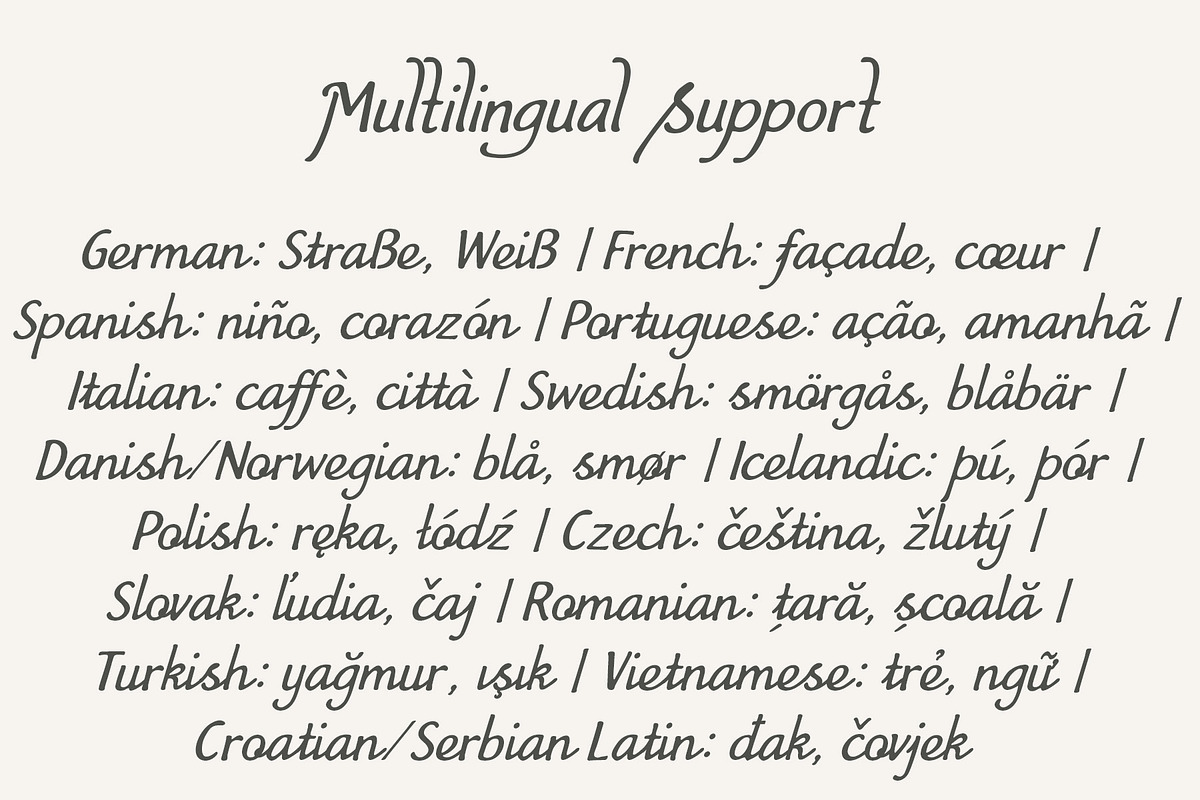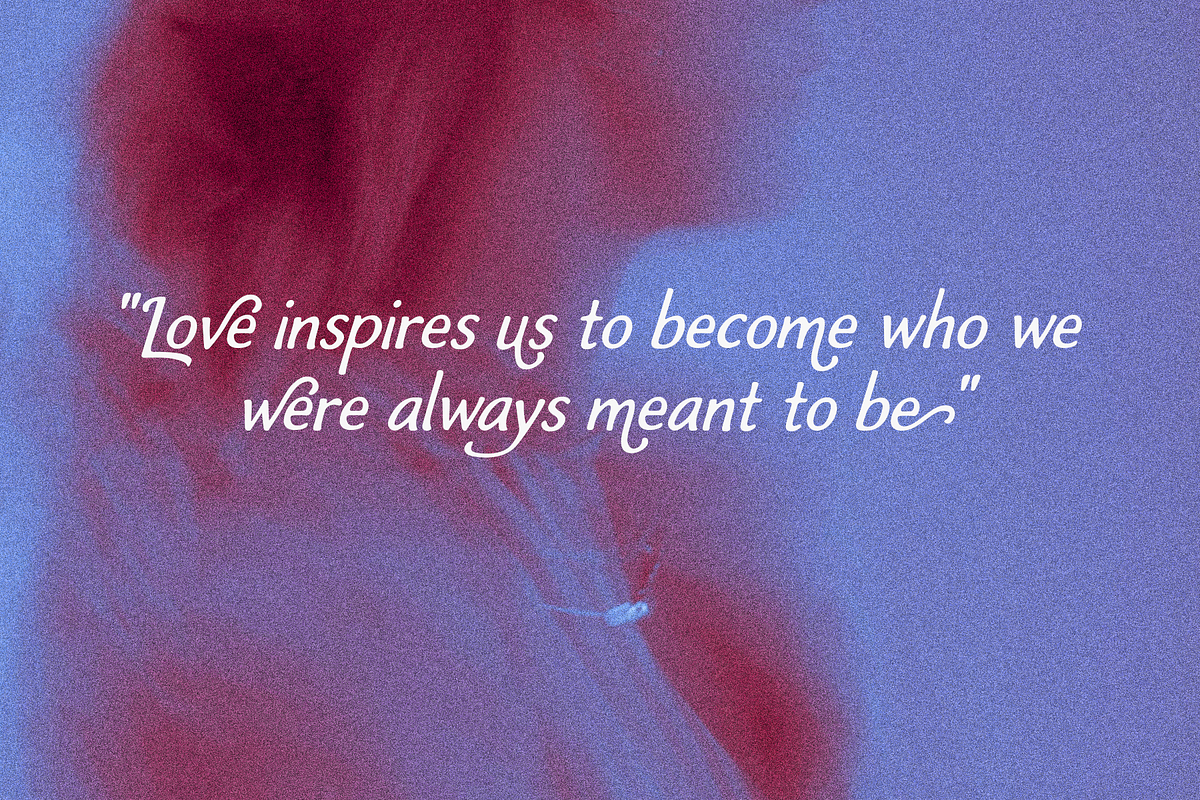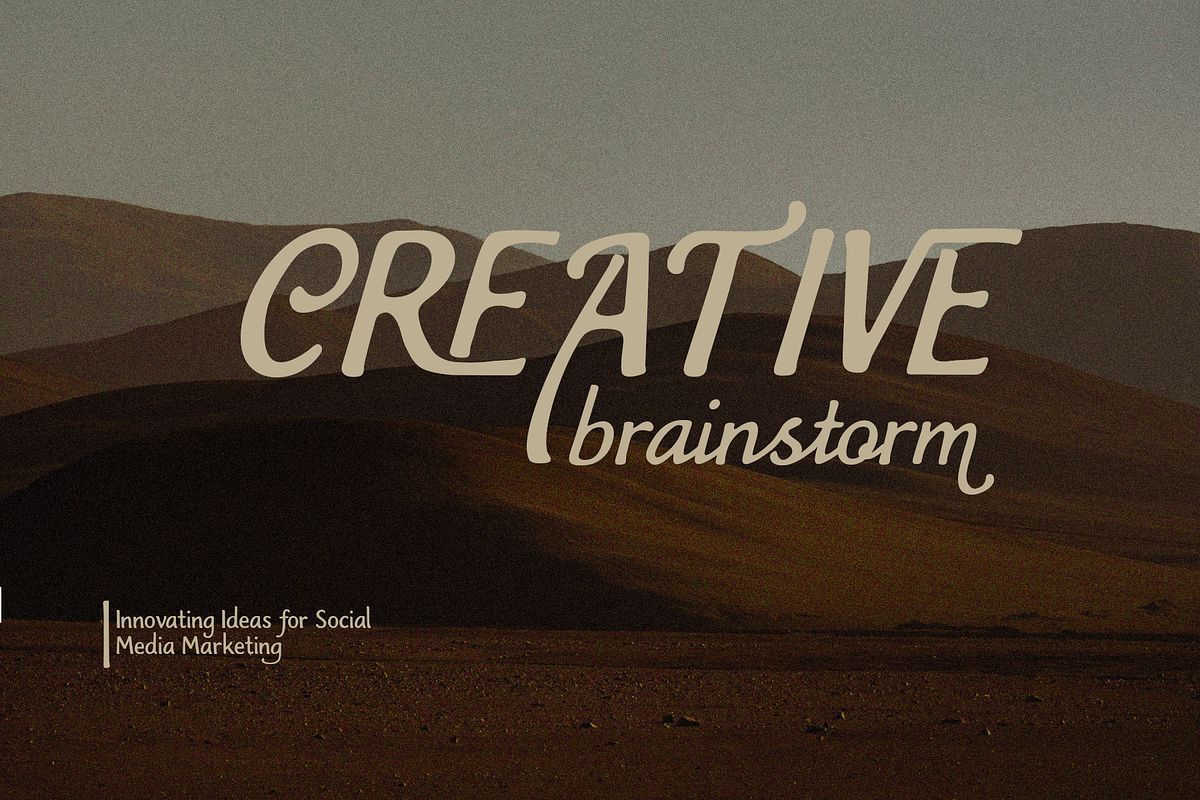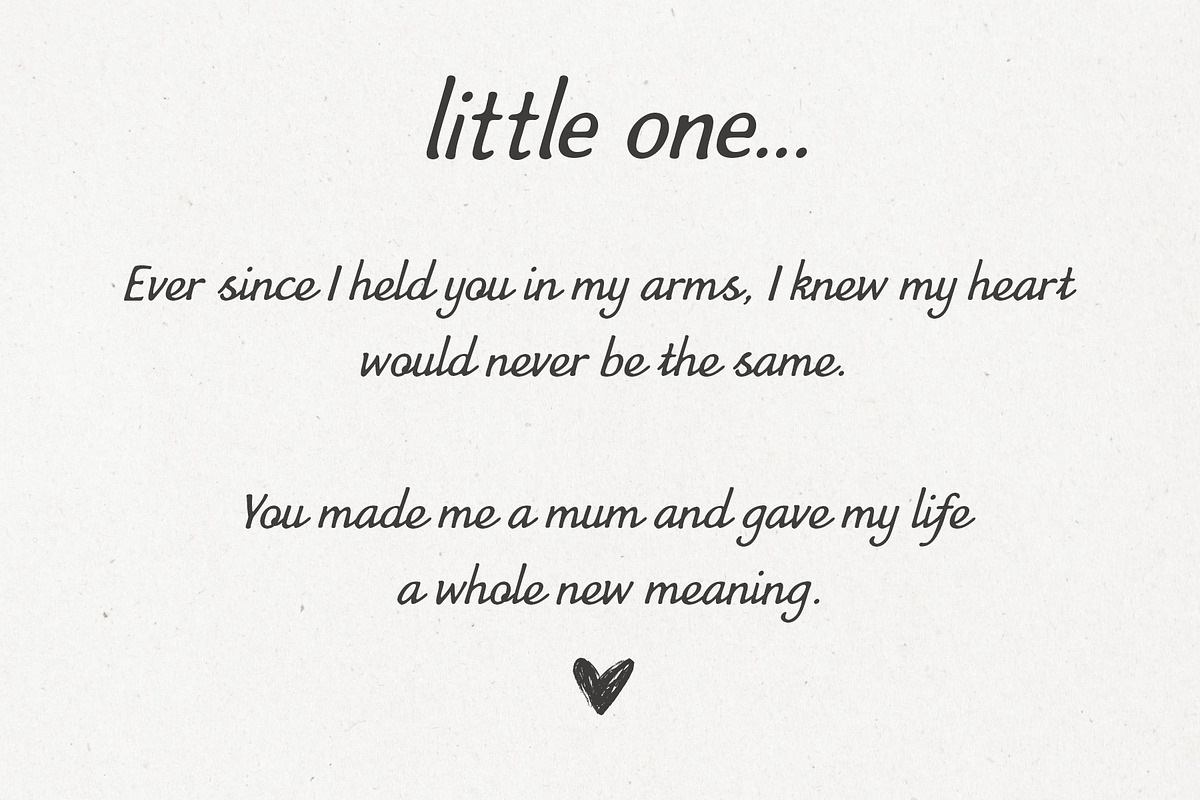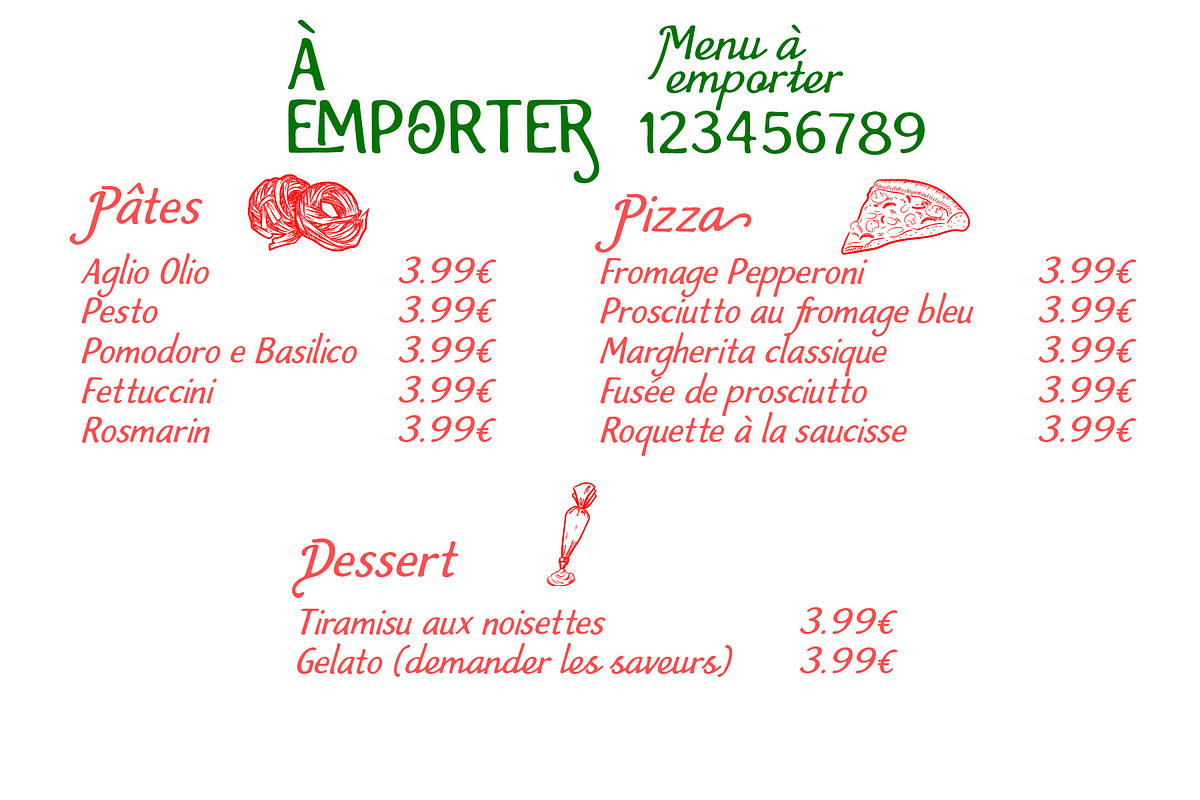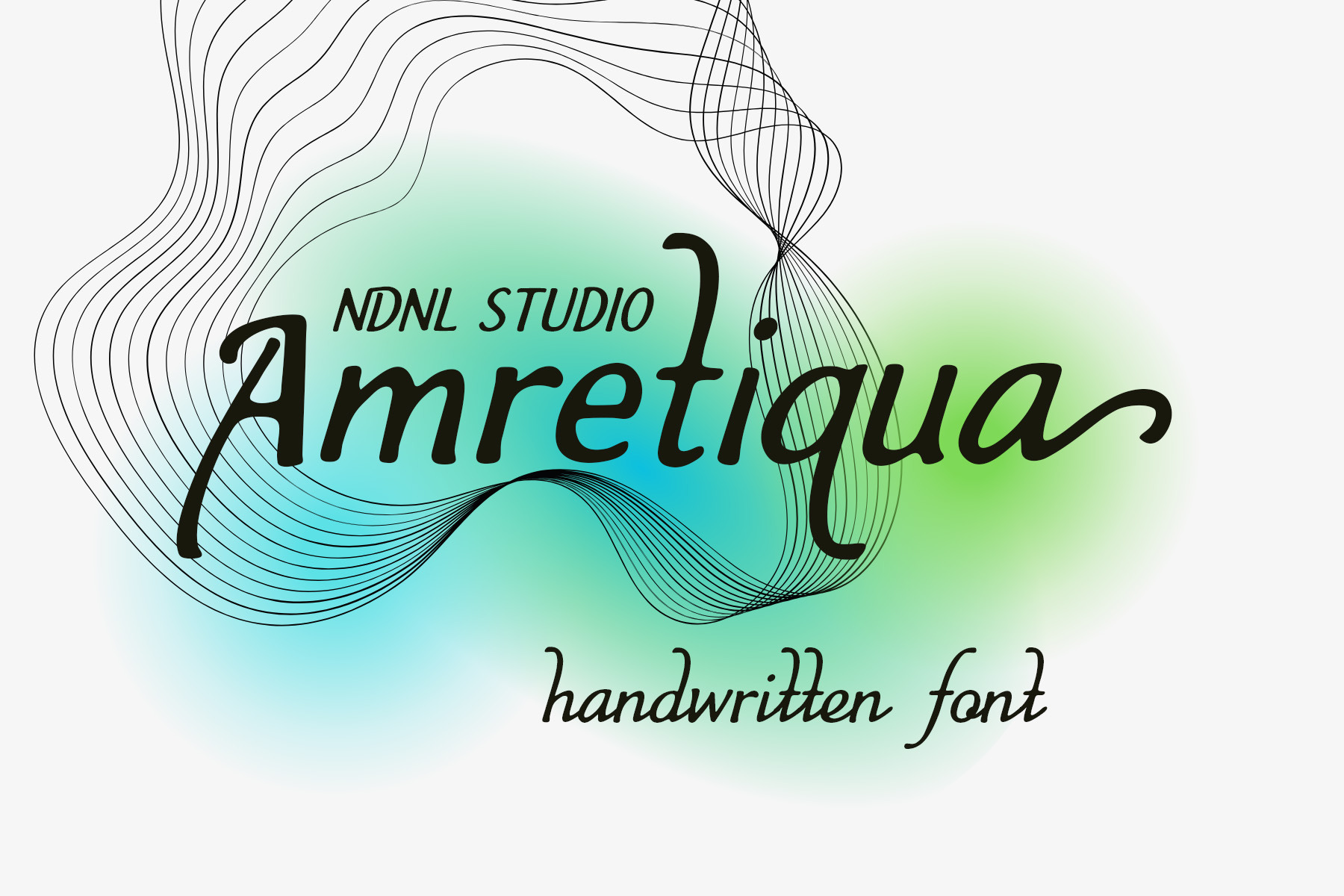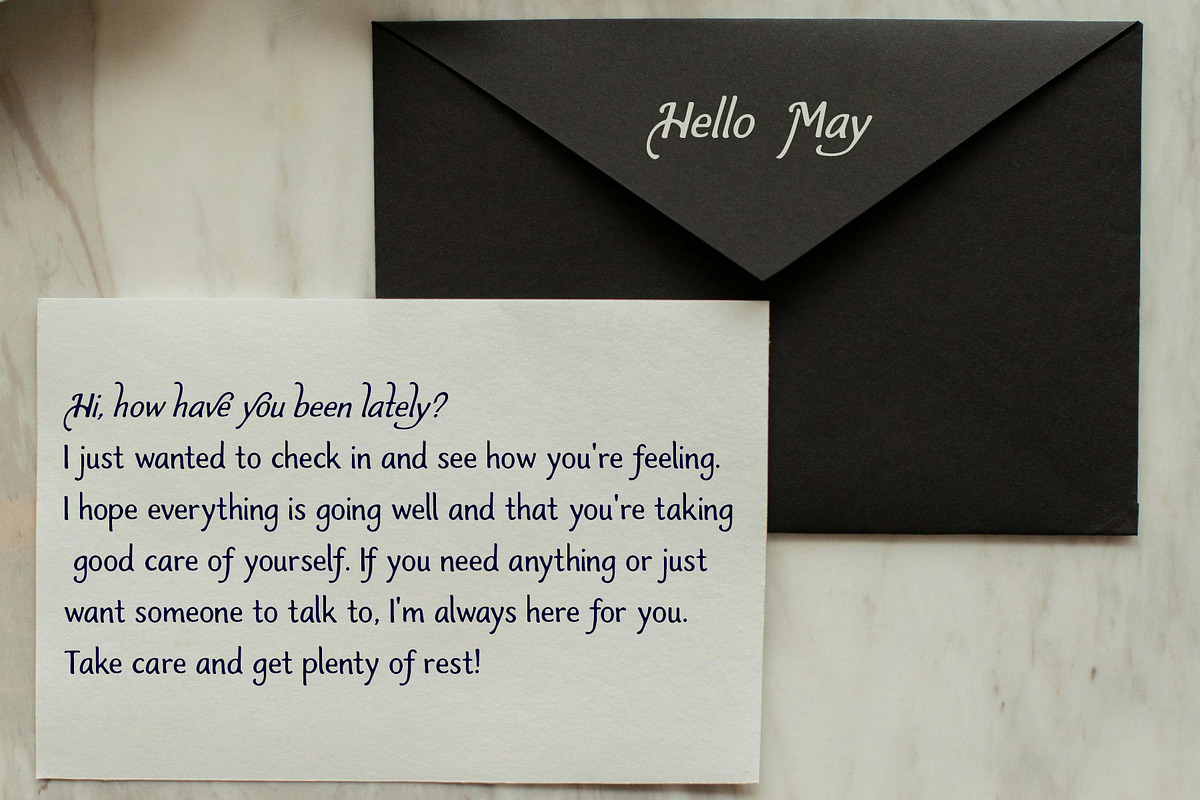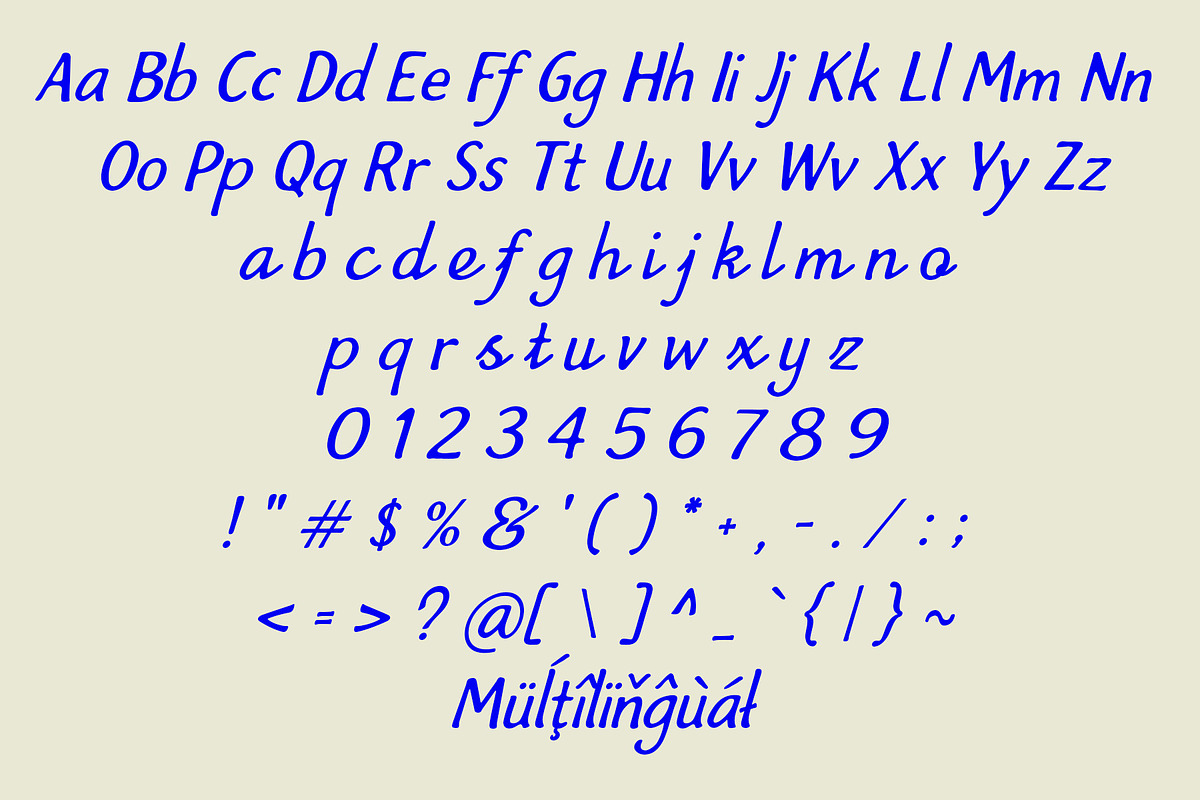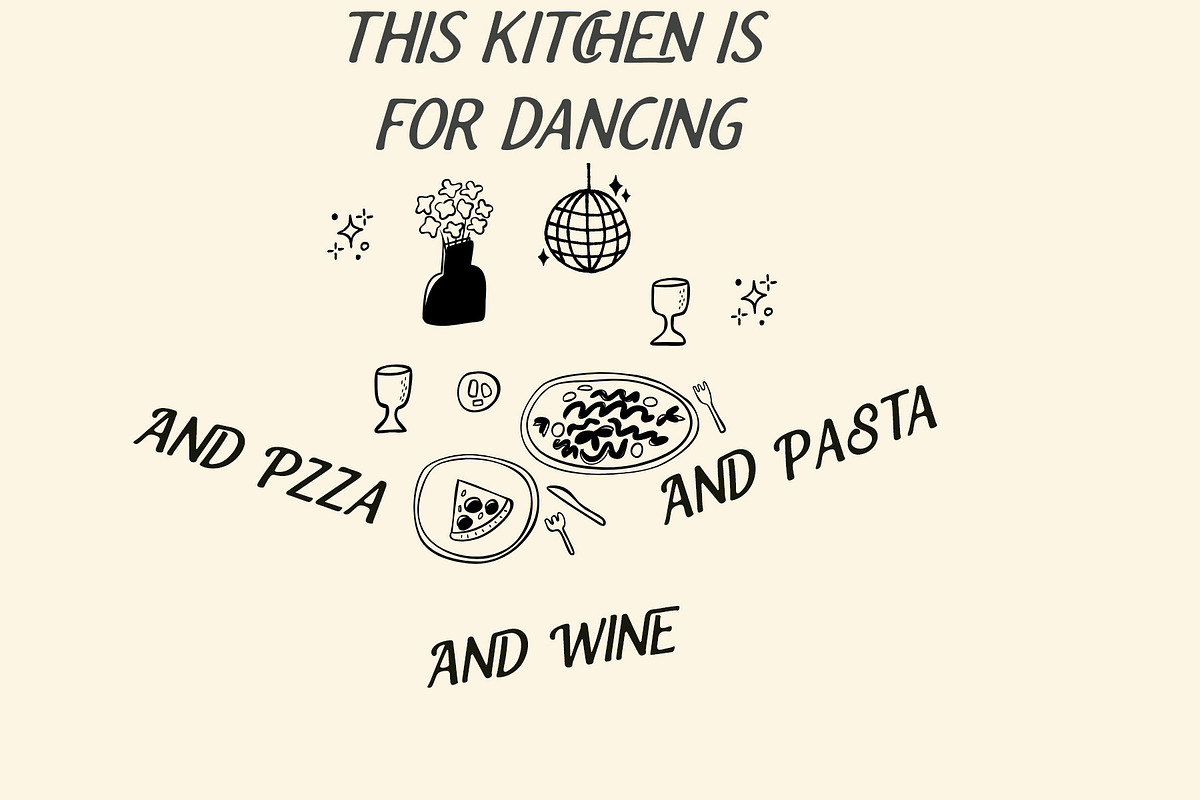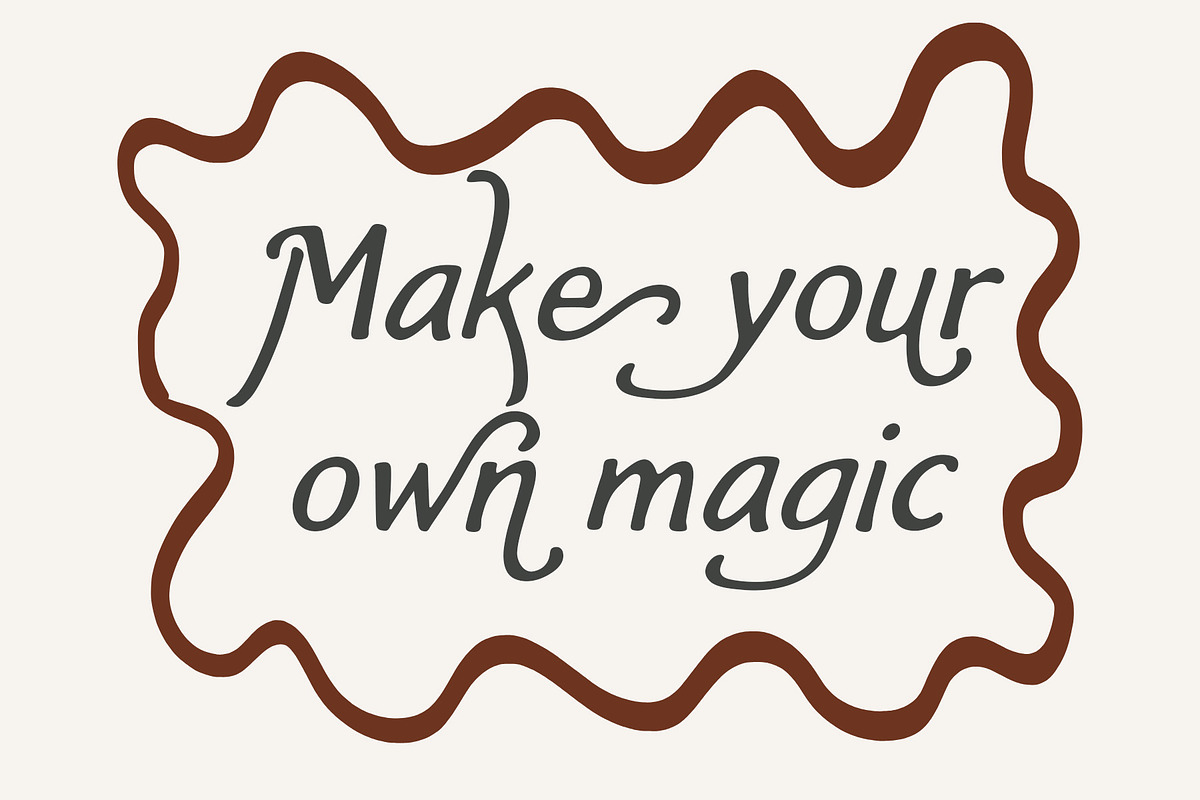
Amretiqua - Handwritten Font
Amretiqua is a stylish handwritten font designed to bring a soft, natural, and expressive feel to your typography. Inspired by the beauty of real handwriting, this font features smooth strokes, flowing connections, and balanced letterforms that create an elegant yet relaxed appearance.
Amretiqua works beautifully for a variety of creative purposes such as logos, branding, wedding invitations, quotes, social media posts, packaging, and feminine design projects. Its graceful style helps convey warmth, personality, and a handcrafted aesthetic that instantly makes designs feel more personal and engaging.
If the software you are using does not fully support OpenType features (such as Stylistic Alternates), you can still access the decorative characters of the font using the following method:
Examples:
- Axx → Decorative A (if available)
- aX → Decorative a (if available)
And also:
- AxX → Decorative A2 (if available)
- aXX → Decorative a2 (if available)
- aXXX → Decorative a3 (if available)
To separate ligatures: Insert the shortcut xXx between two characters.
- ab → axXxb → a b